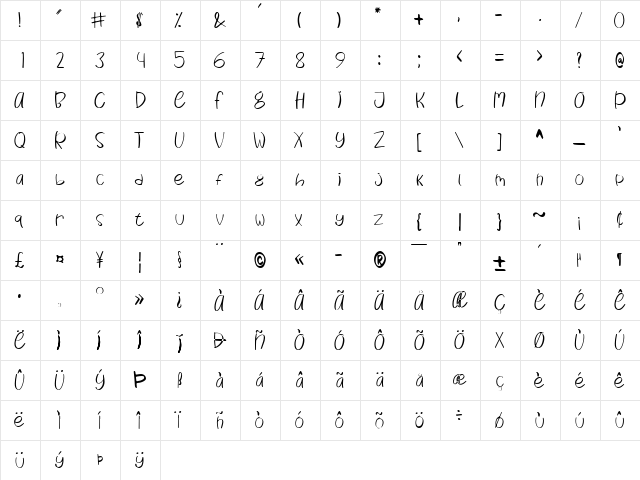
Baby Fruitchy Regular
Design Context for Baby Fruitchy Typeface
Baby Fruitchy is a composed and adaptable typeface that performs quietly and consistently across a wide range of design contexts.
Pro Tip: Use Baby Fruitchy in both headline and body roles to test its range before committing to a single application.